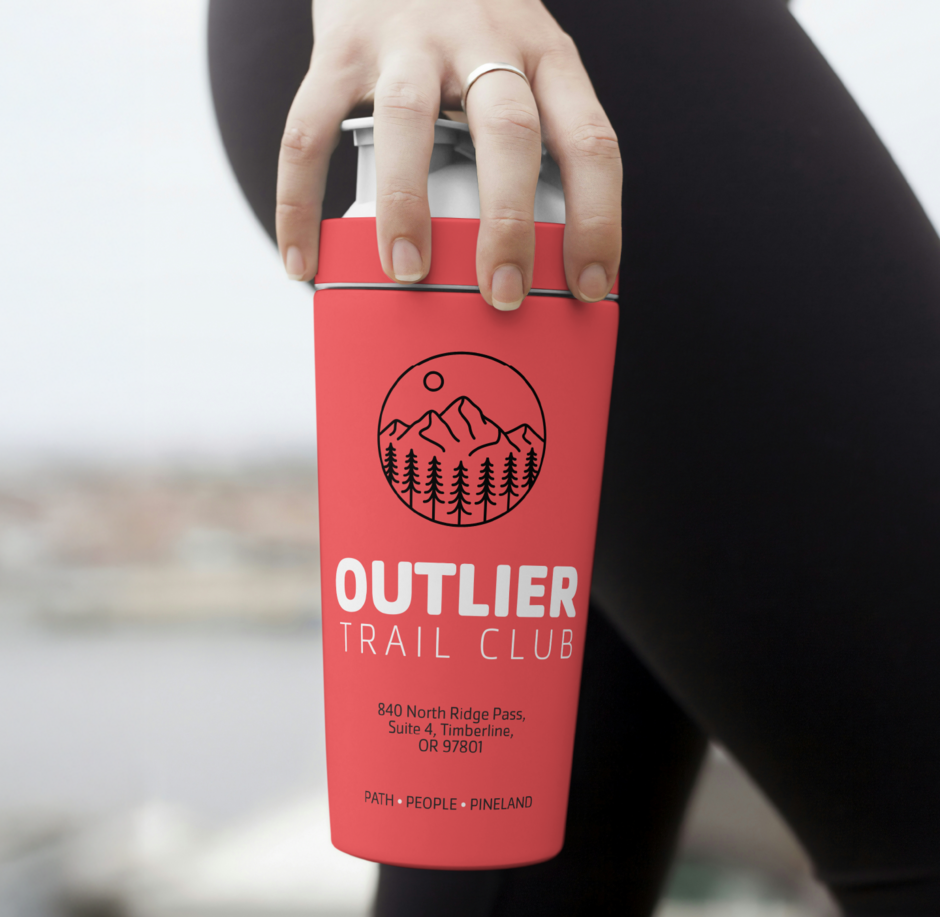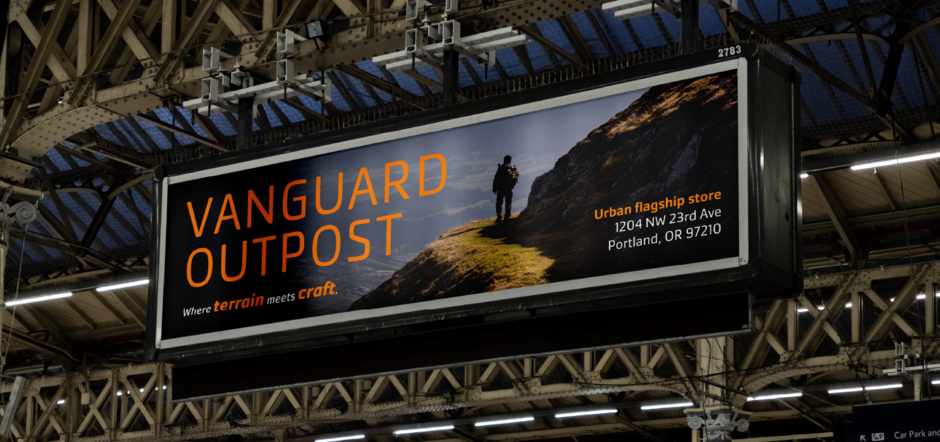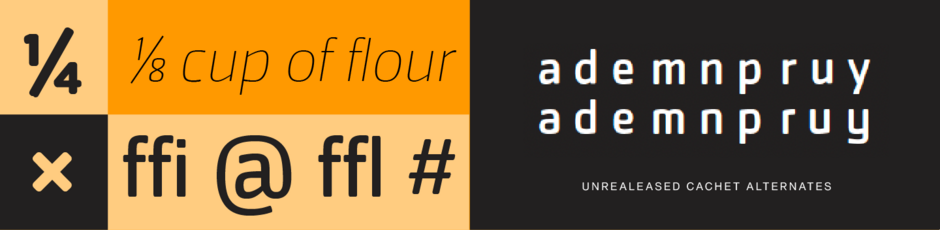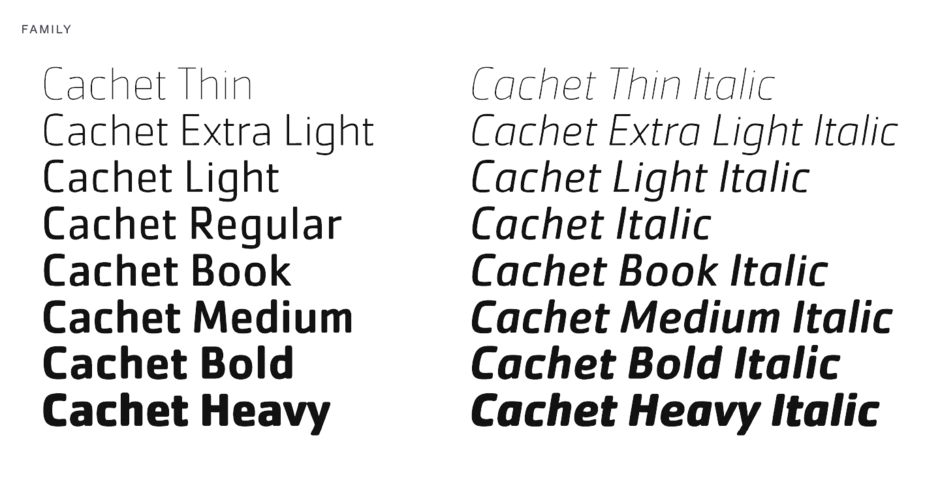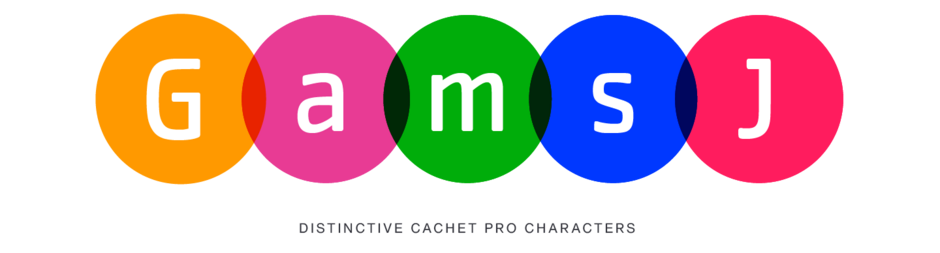
Hidden Gem Cachet™
FOUNDRY: Monotype
DESIGNER: Dave Farey and Richard Dawson
CLASSIFICATION: Square Sans
WHY CACHET
Cachet appears to be constructed of straight and nearly-straight strokes. A closer look, however, reveals several subtleties. Curved strokes have an almost calligraphic, spontaneity. Places where character strokes meet are tapered slightly while stroke ends have been flared. These quite deviations from the obvious give Cachet a human, organic, and decidedly non-digital look. An added benefit is that the subtle design modulation benefits readability
ANCESTRY
- Farey and Dawson drew Cachet to resemble a fixed-pitch typeface – each character occupying the same horizontal space – yet aimed for greater legibility and warmth than typical designs constrained by such limitations. Terminals are subtly rounded to further enhance Cachet’s friendly demeanor. This detail is delicate in the lighter weights but becomes increasingly pronounced in heavier styles. The result is a distinctive, readable, and approachable typeface.
- First announced with just three roman weights, and no italics, Farey and Dawson, soon realized that additional weights would give designers a more versatile family. As a result, five new weights joined the original three. The Cachet family now ranges from a stately thin to a robust heavy weight and each roman design has a complementary italic. In all, a total of 16 typefaces.
PAIRING CACHET
- Glyphic design traits, like those in Cartier Book™ or New Veljovic®, will provide a subtle nuance to Cachet’s structured forms.
- Slab Serif or Clarendon typefaces, with subtle to overt humanistic design traits, will create a more pronounced counterpoint.
- Old Style typeface designs like Berkeley Old Style or Palatino® Nova, with humanistic shapes and proportions, are natural complements to Cachet.
- Avoid most sans serif fonts. Some geometric designs, like Futura® Now or Neue Kable™, can pair well with Cachet. The weights of the two designs, however, should be significantly different from each other.
CLASSIC FACTS
- Farey and Dawson considered adding condensed designs and alternate characters to the Cachet family, but these were not productized.
- David Farey was born in London in 1943. At the age of 16, he left school, reflecting later that “my major achievement was winning an italic handwriting prize.” After a few false starts in his career, Farey secured an apprenticeship at Letraset’s London design office. There, he mastered his craft and quickly became one of Letraset’s most prolific designers.
- According to Farey, “Cachet is a monospaced, monostroke typeface – that isn’t.”